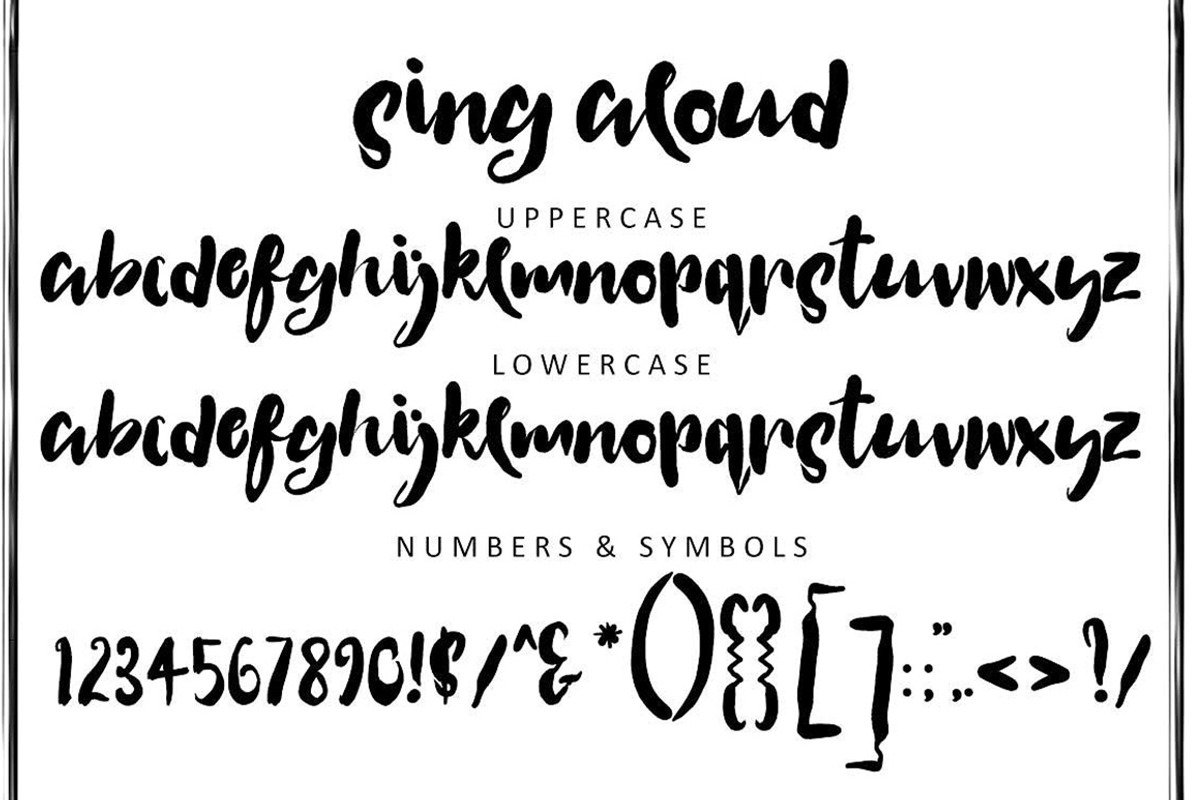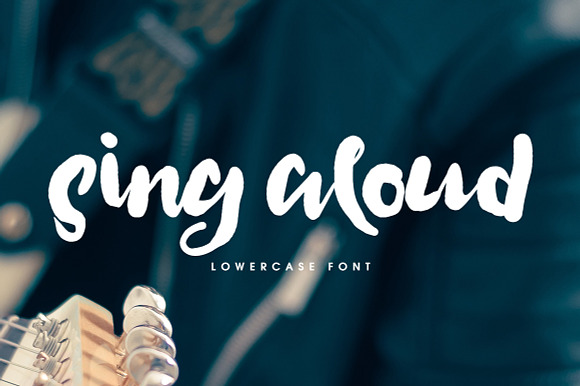
Sing Aloud Font
This is Sing Aloud. A bouncy bold script font. This font is part of the Big Bunch of Fonts Volume 2 here
Why Sing Aloud Font is worth a look
Sing Aloud Font by Creativeqube Design fits naturally into Branding, posters, packaging, typography.